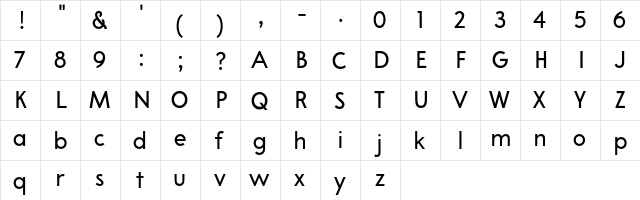
A Pompadour Sample Regular
| Foundry | Ana Parracho |
| Designer | Ana Parracho |
Design Context for A Pompadour Sample Typeface
A Pompadour Sample takes a measured approach to typography — its balanced proportions and neutral character make it a reliable workhorse for both digital and print work.